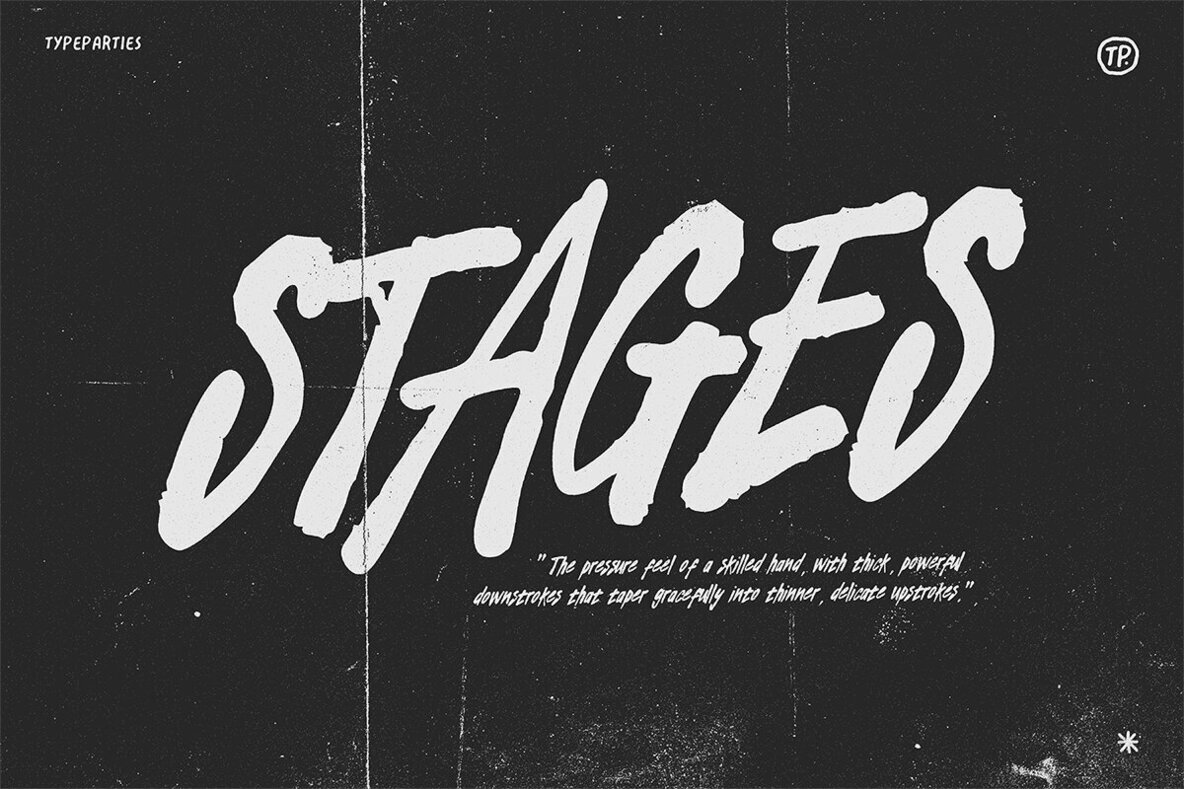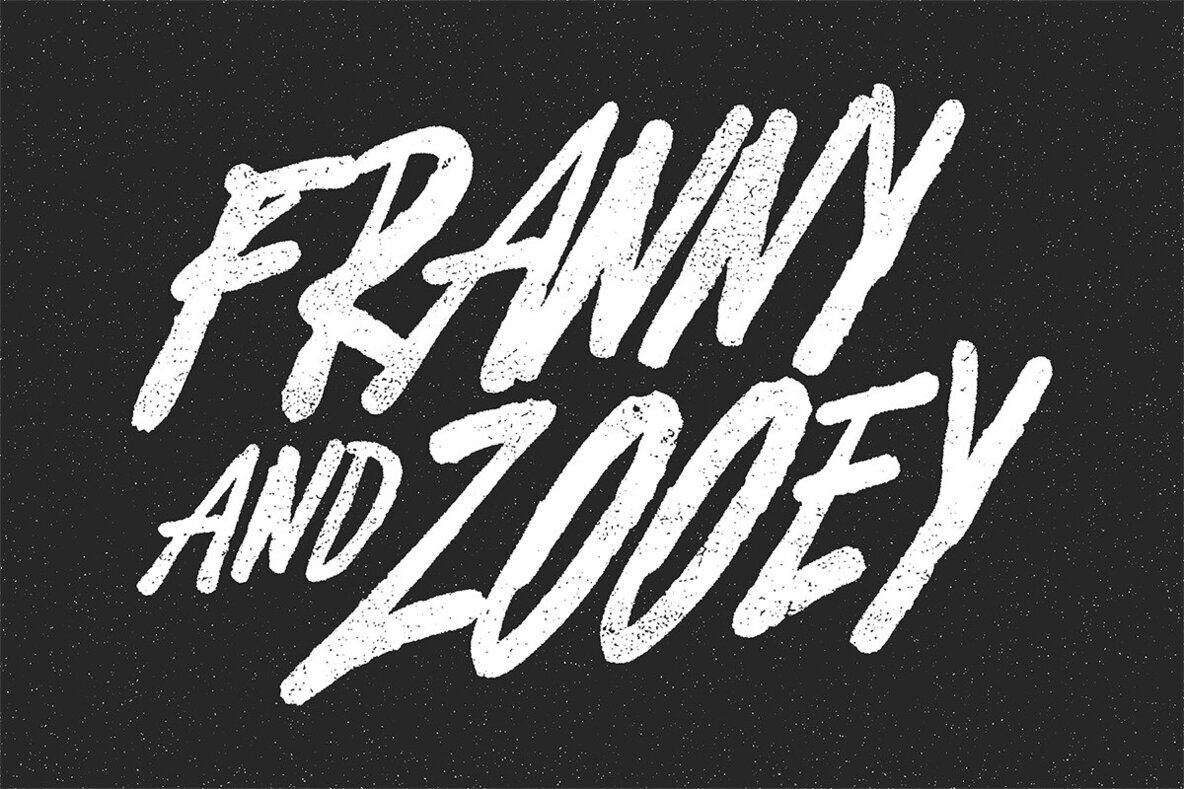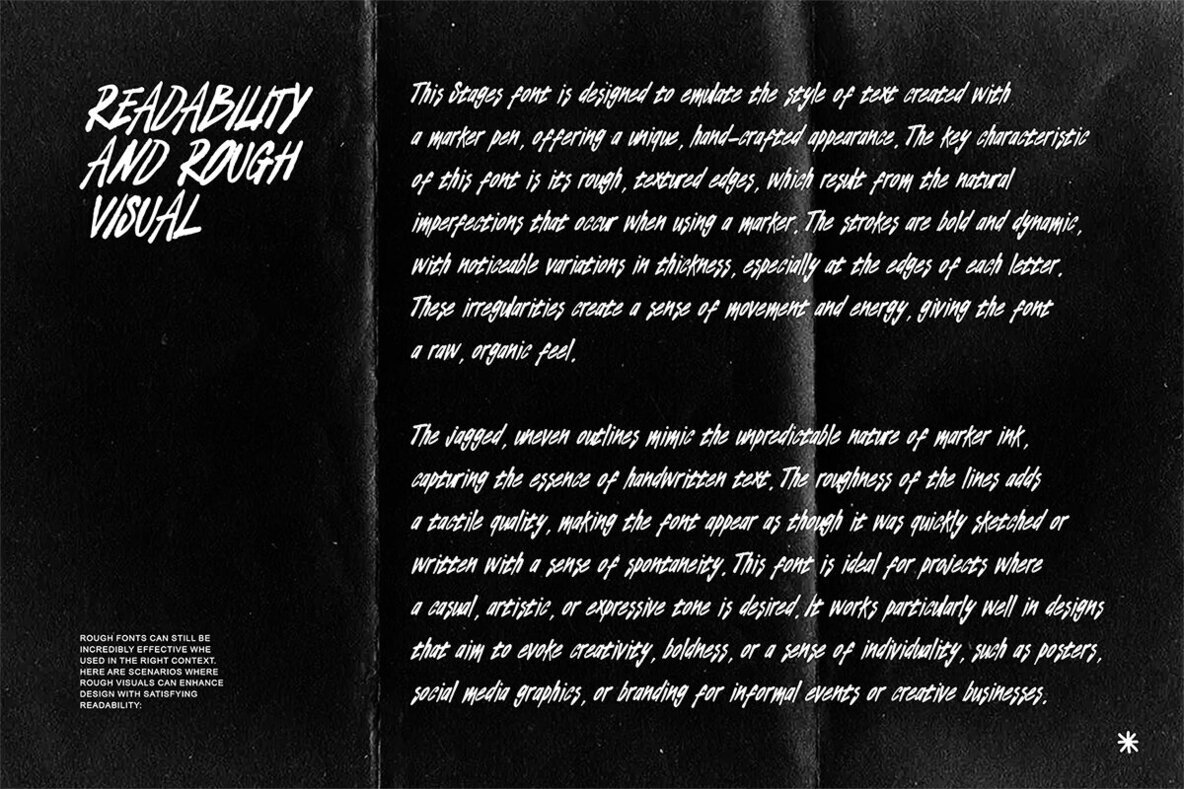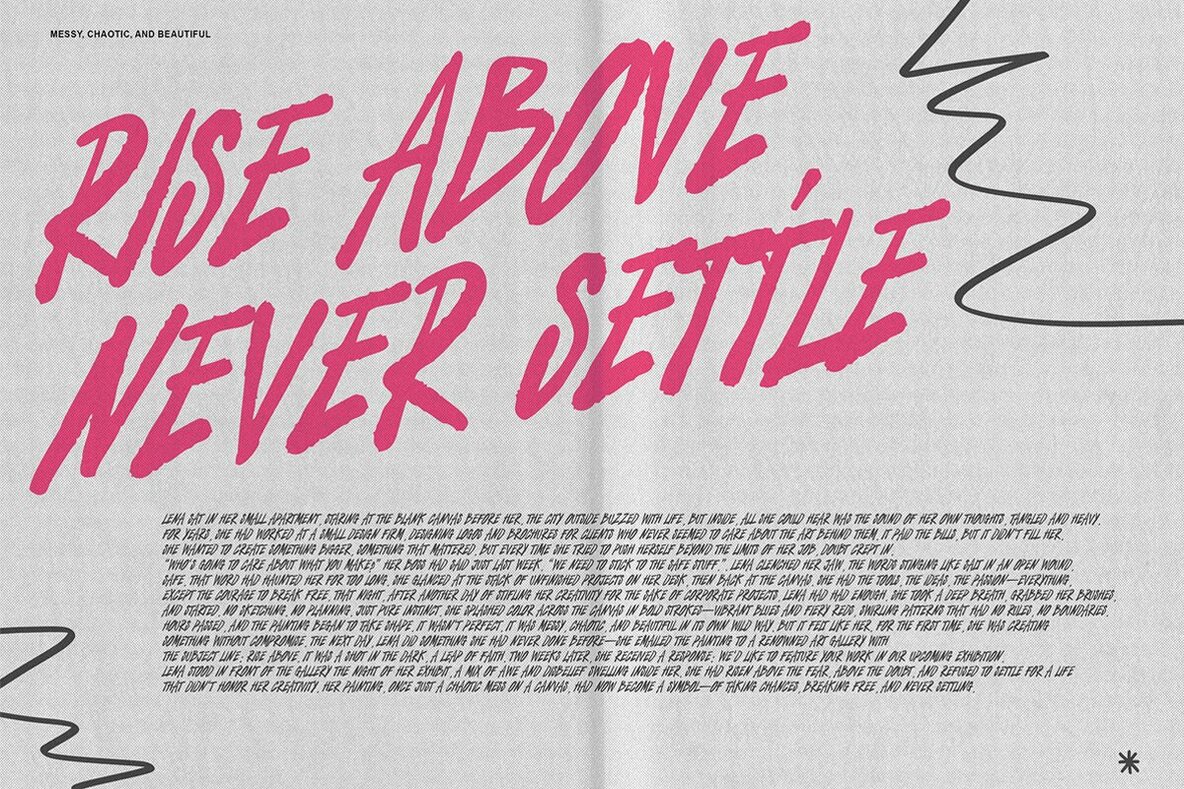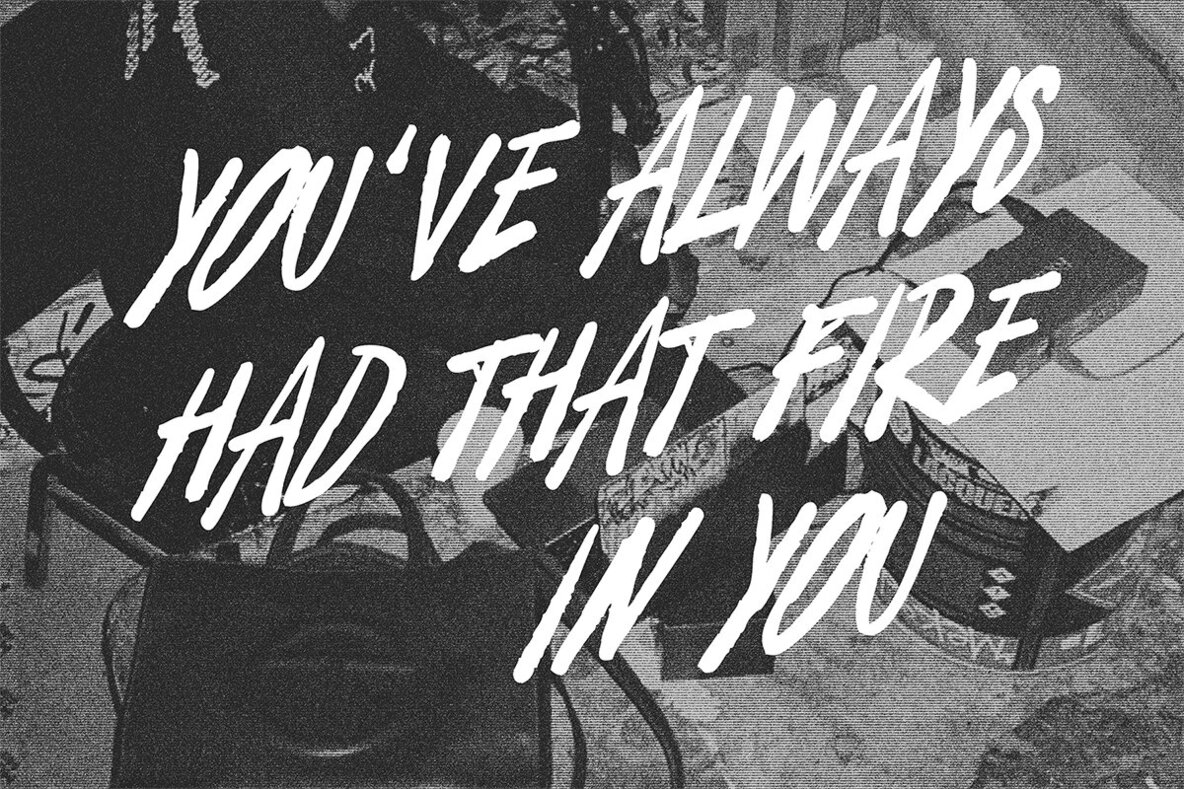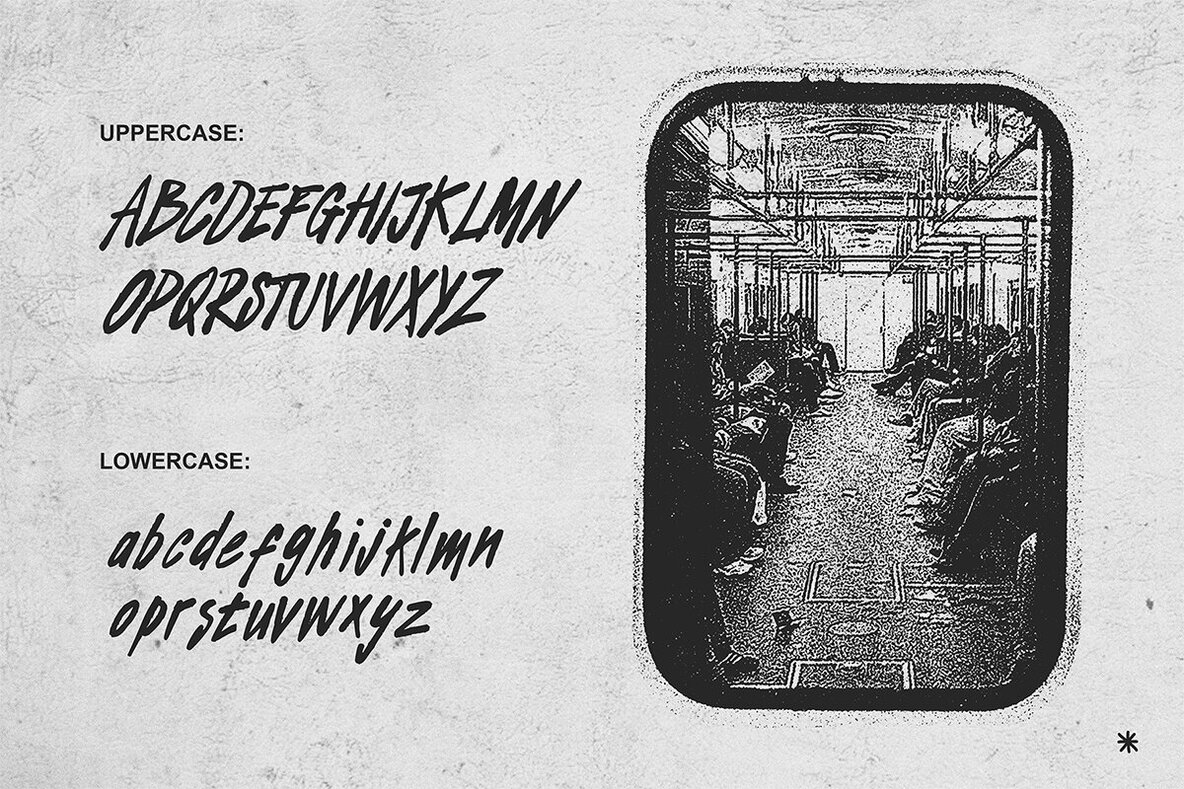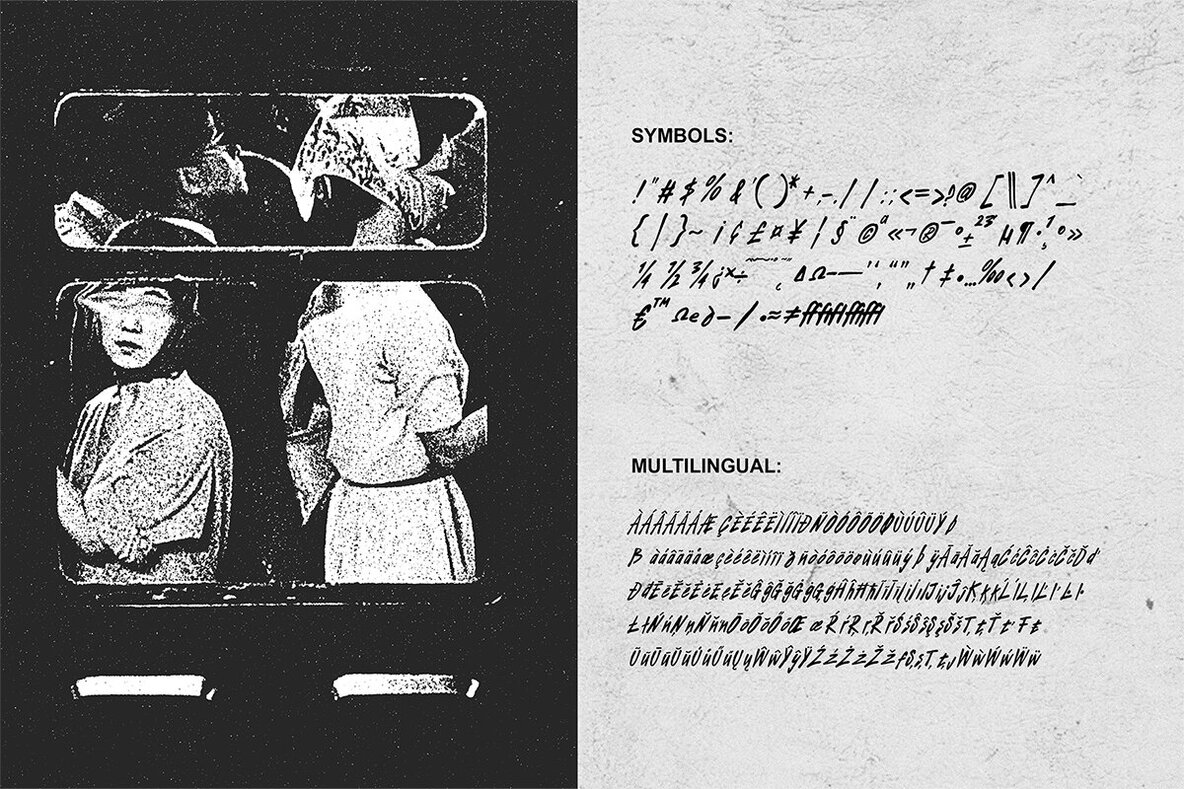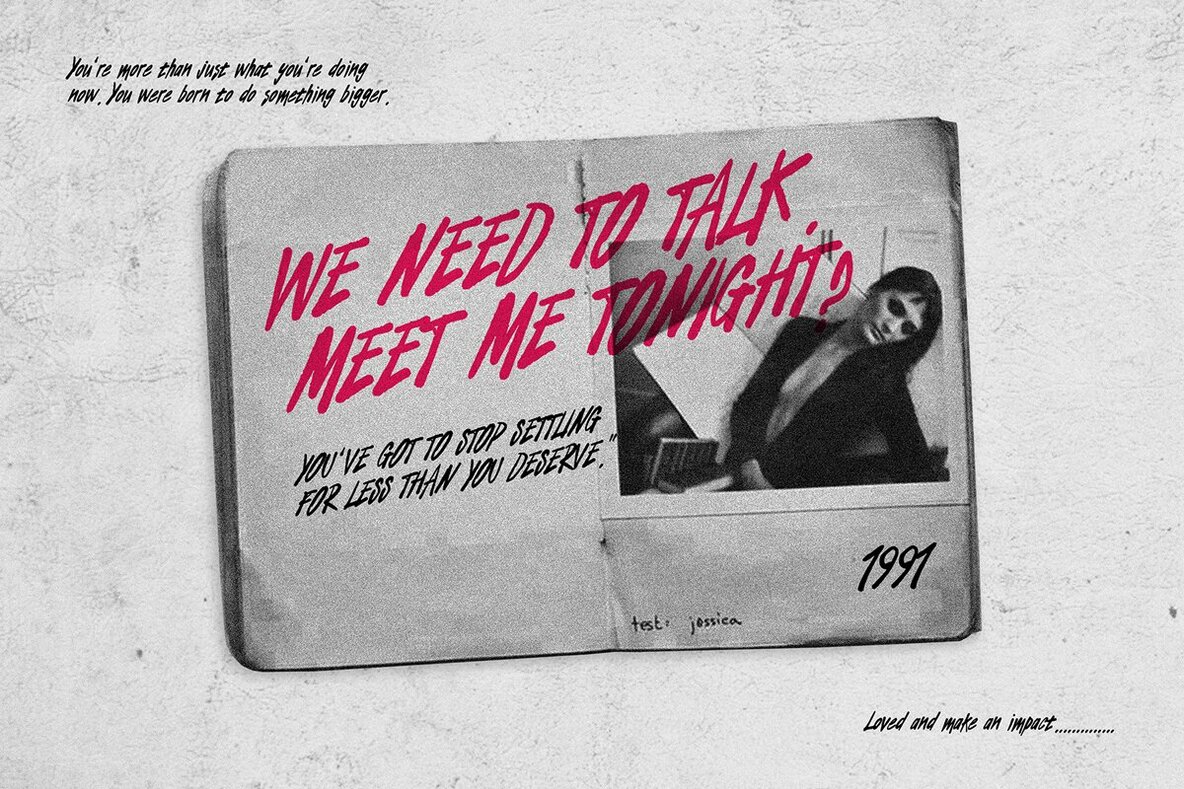
Stages Font
ATP Stages
Stages Brush Fonts is a handwriting fonts are a dynamic and versatile typeface style that brings a handcrafted and expressive feel to any design project. These fonts mimic the look of natural, textured strokes made with a brush or marker, complete with irregularities, rough edges, and a natural flow that captures the essence of hand-drawn artistry. Their raw, unpolished quality makes them a popular choice for projects that seek to convey creativity, energy, and personality. For poster headlines, Stages Brush Fonts shine as the focal point, grabbing attention with their bold and striking aesthetic. Their rough and textured appearance adds a sense of movement and vitality, making them perfect for promoting events, music gigs, or art showcases. They command attention and create an immediate visual impact, ensuring that the headline stands out in any setting.
This version comes with refined kerning adjustments and several updated glyphs to improve overall balance and readability. The spacing between characters has been carefully optimized, ensuring smoother text flow in both small and large sizes. Some glyphs have also been redesigned to provide more versatility, making the font easier to use across different layouts and design purposes. With these improvements, the font now delivers a cleaner, more consistent look while remaining adaptable for a wider range of creative applications.